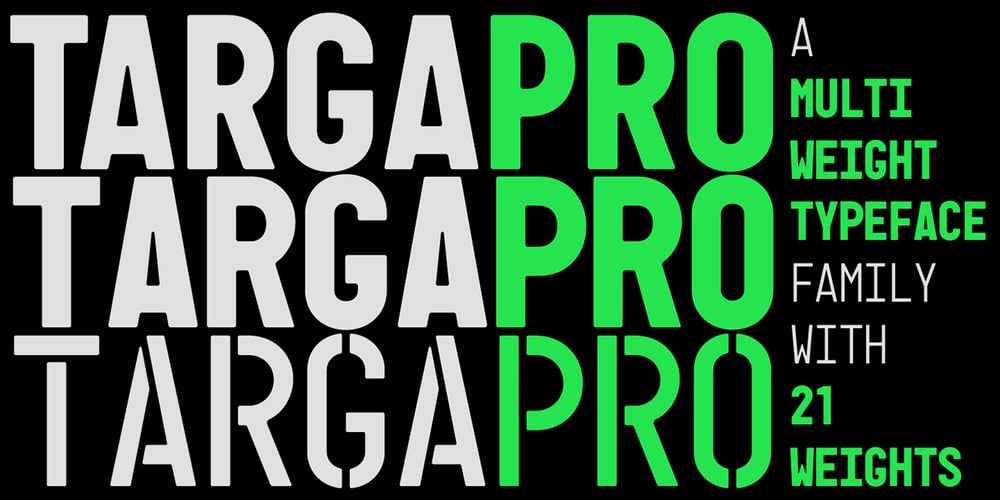
Targa Pro Font Family was designed by Francesco Canovaro, Cosimo Lorenzo Pancini, Mario De Libero and published by Zetafonts. Targa Pro contains 23 styles and family package options. For many years license plates in Italy have been using a quite peculiar sans serif monospace typeface with slightly rounded corners and a geometric, condensed skeleton. These letterforms have been used by Cosimo Lorenzo Pancini as an inspiration for Targa, published as the first-ever Zetafonts typeface in 2003. Almost twenty years later, Francesco Canovaro has brought the project under scrutiny for a complete redesign, keeping its inventions, solving its issues, and making it into a versatile multi-weight typeface. The original type family has been developed in two subfamilies: Targa Pro Mono (which keeps the original monospace widths) and Targa Pro Roman (with proportional widths), both in five weights plus italics. The original family also included the handmade version Targa Hand which has been paired with a new Targa Pro Stencil to allow for more versatility and choice for display use. All weights of Targa Pro feature an extended latin character set covering over 200 languages, as well as a full set of Open Type features including positional numbers, alternates and stylistic sets.Halfway between postmodern appropriation of utilitarian design and rationalist design, Targa Pro sits comfortably at the crossroads between artificial nostalgia and modernist functionality, ready to surprise the user with its versatility and quirky Italian flavour.